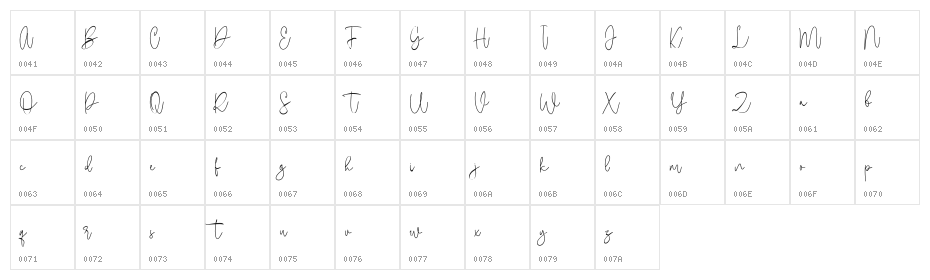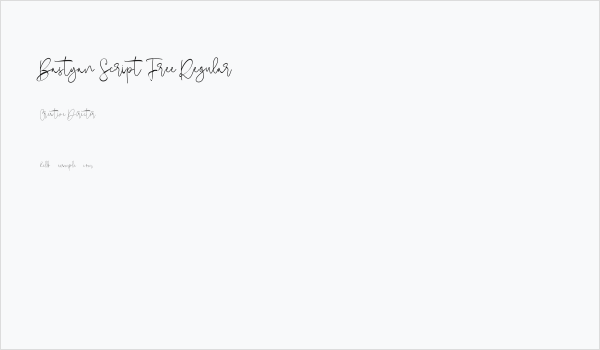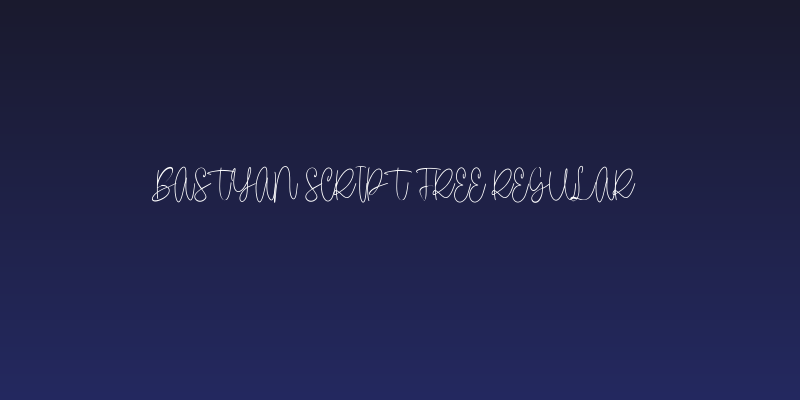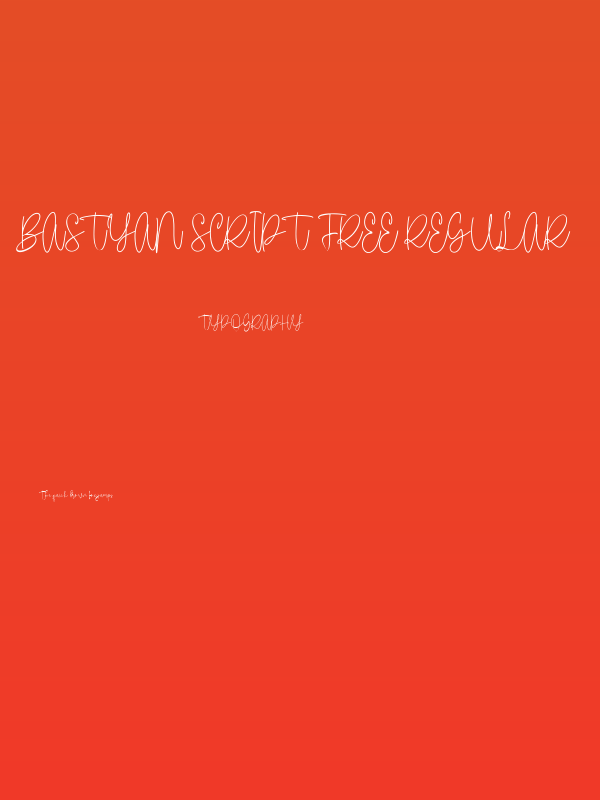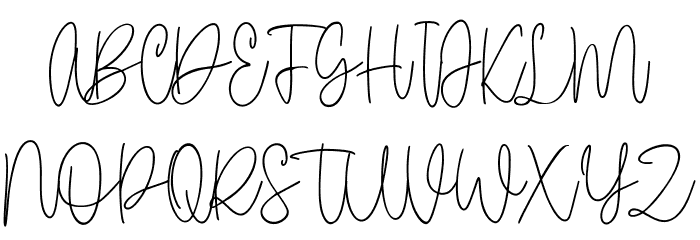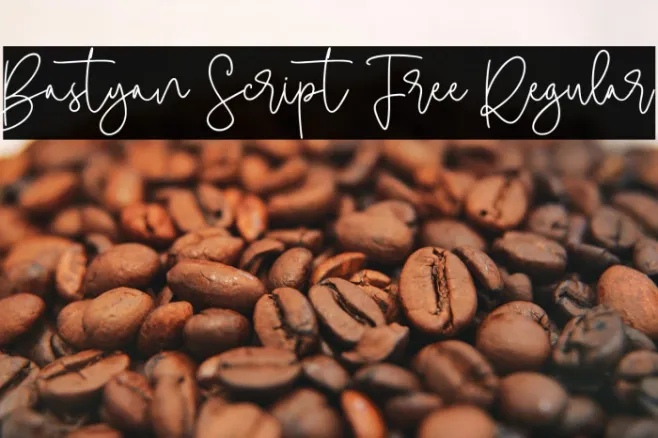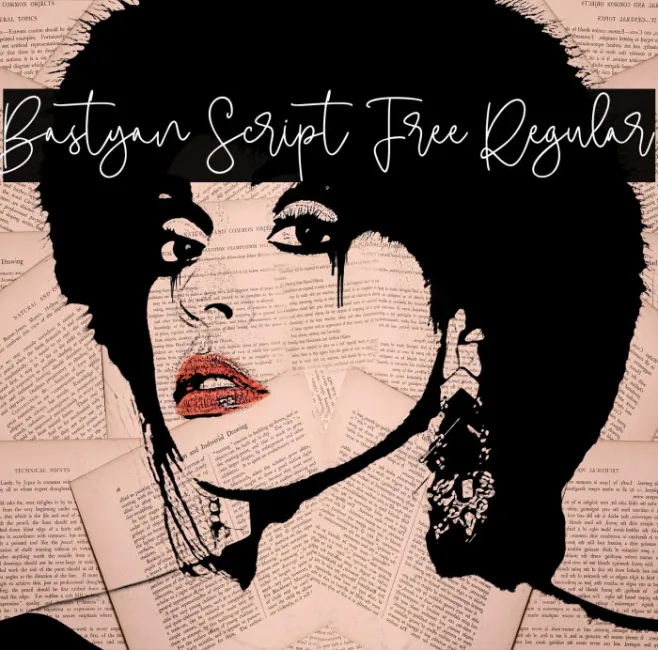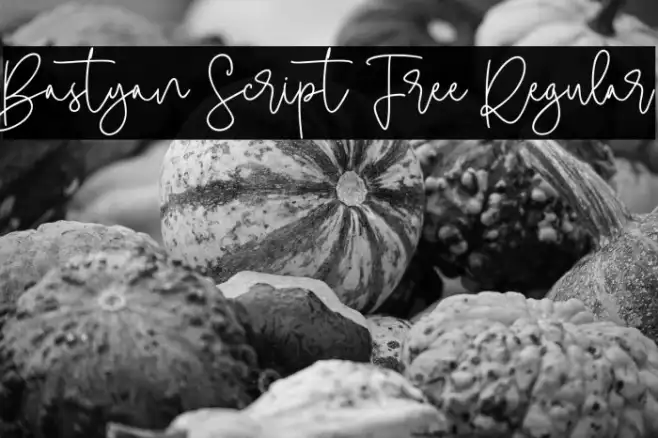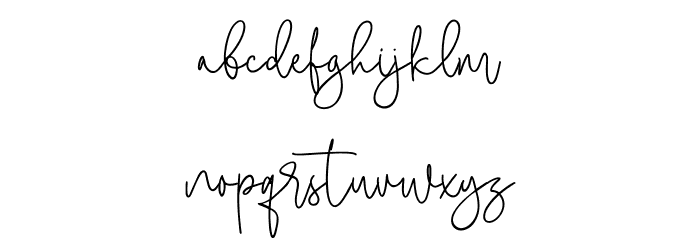
Bastyan Script Free Regular Font
Bastyan Script Free Regular Description
This elegant script font features a flowing, cursive style with smooth, continuous lines that create a sense of fluidity and grace. The letters are interconnected, giving it a handwritten appearance that is both sophisticated and approachable. The uppercase letters are tall and slender, while the lowercase letters maintain a consistent height, enhancing readability. The font's delicate strokes and subtle curves make it ideal for projects that require a personal touch. Its overall design is both modern and timeless, suitable for a variety of creative applications.
| Use Case | Logos, Invitations, Personal projects |
| Proposed Projects | Ideal for wedding invitations, greeting cards, branding, and social media graphics. |